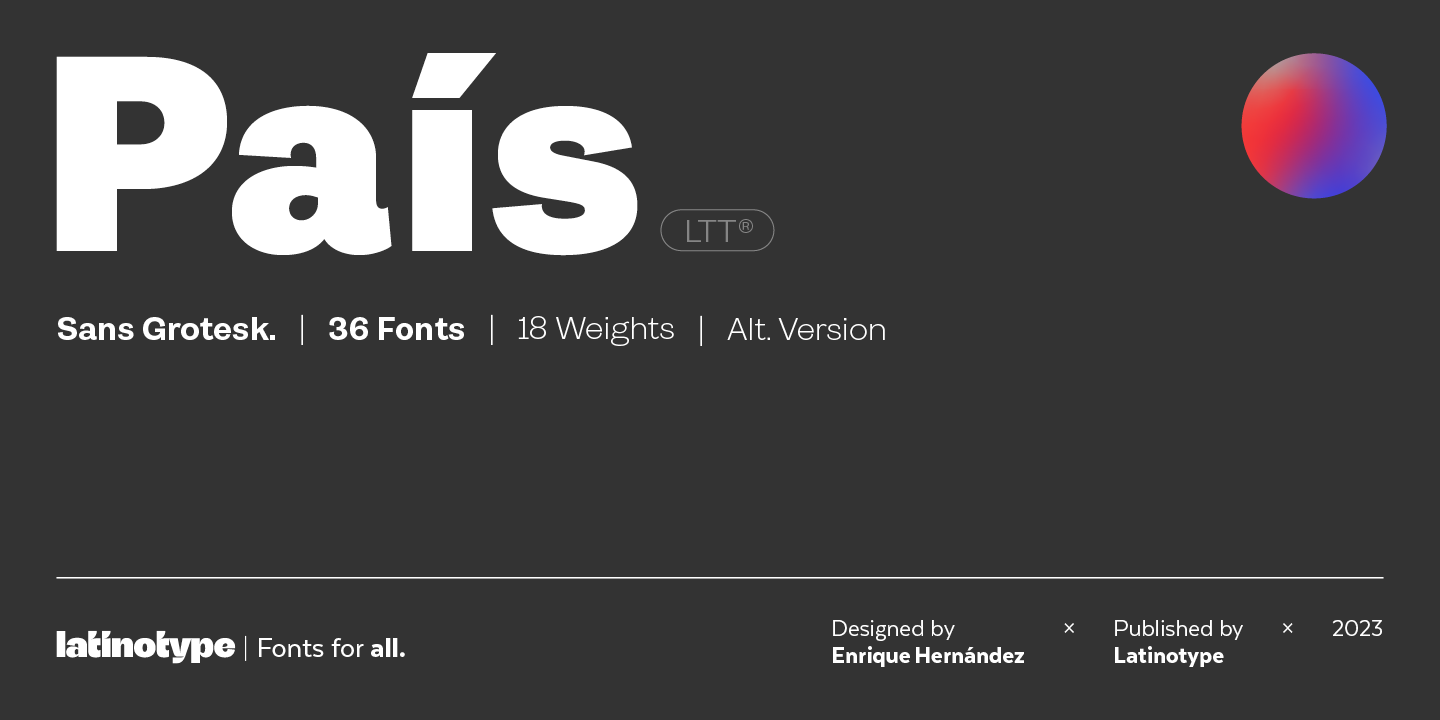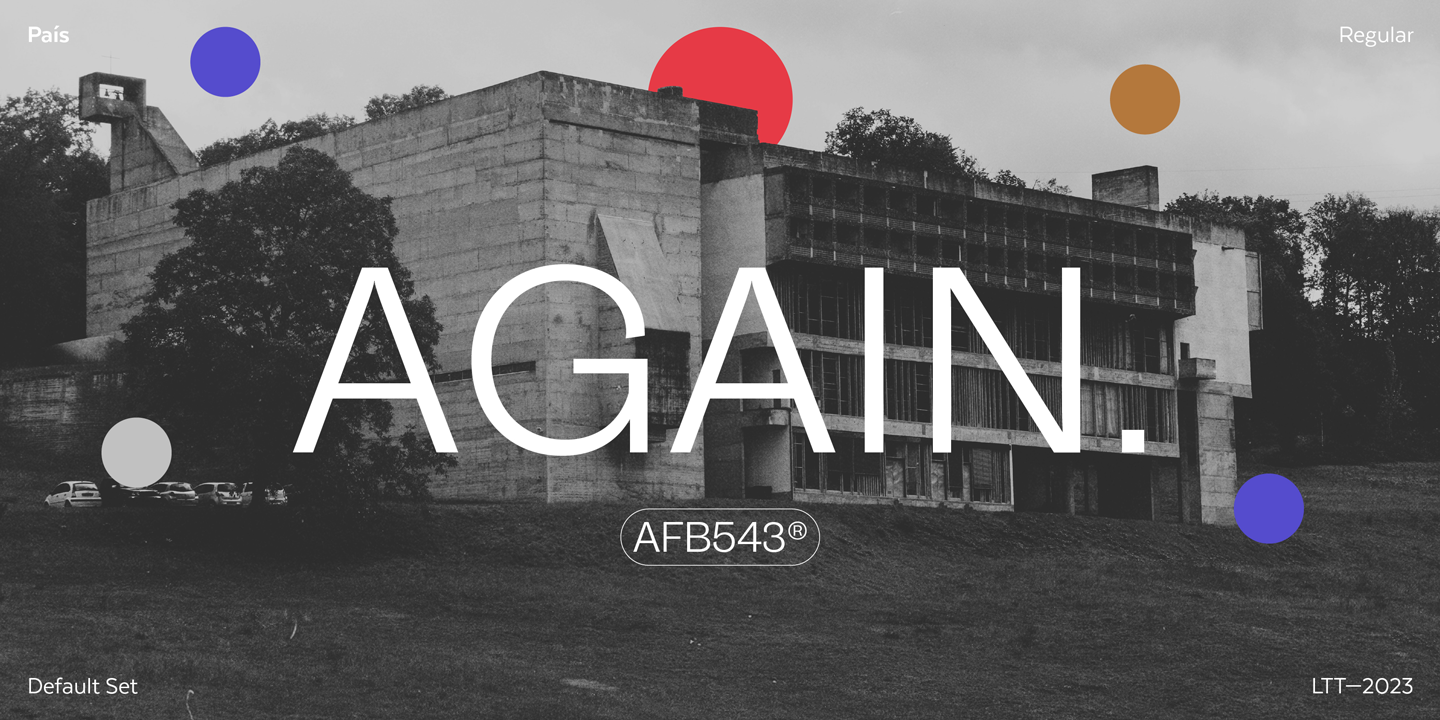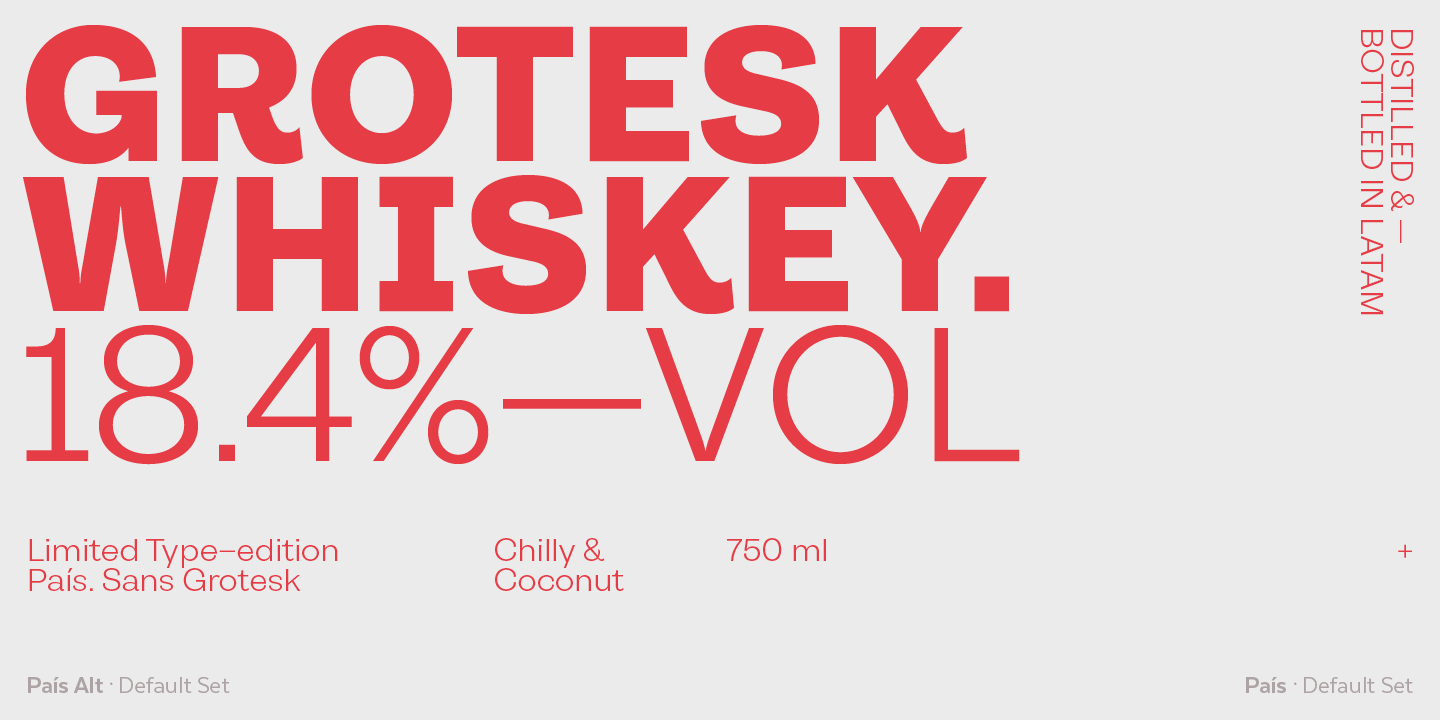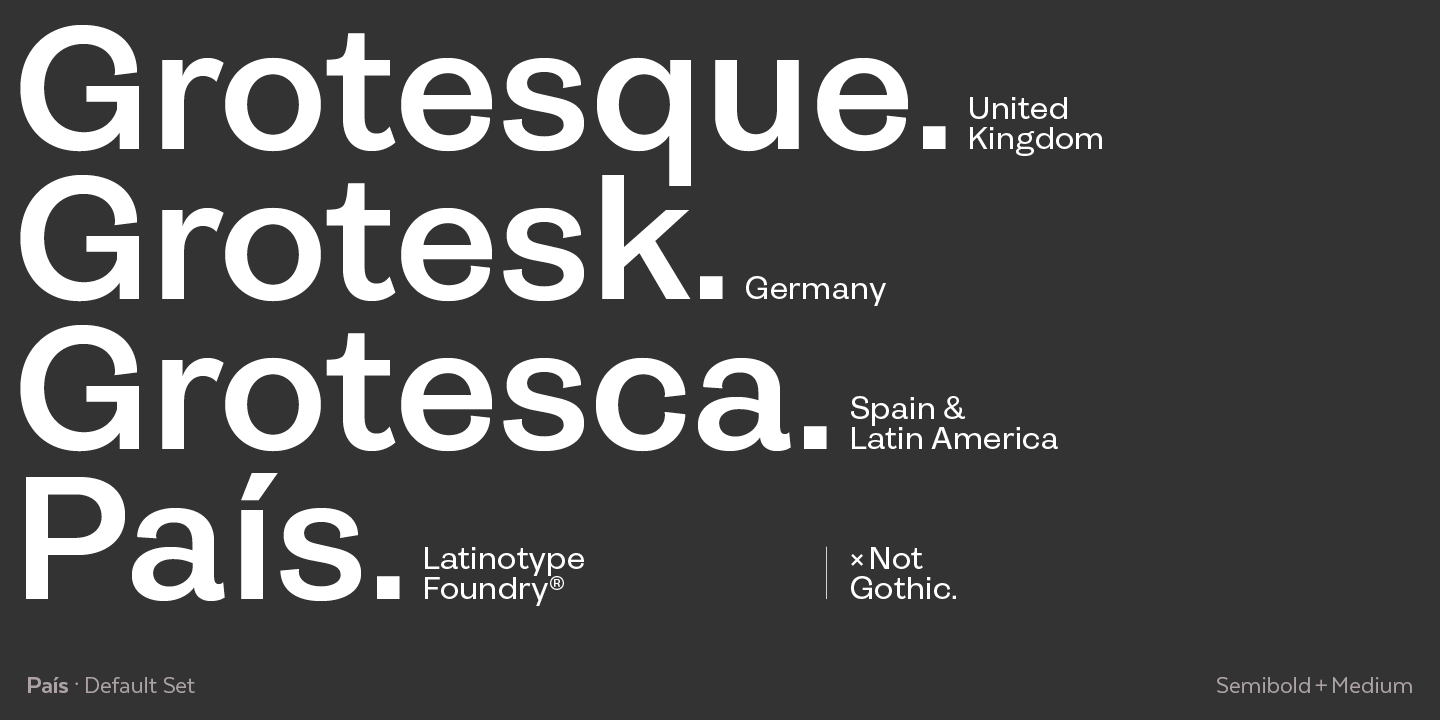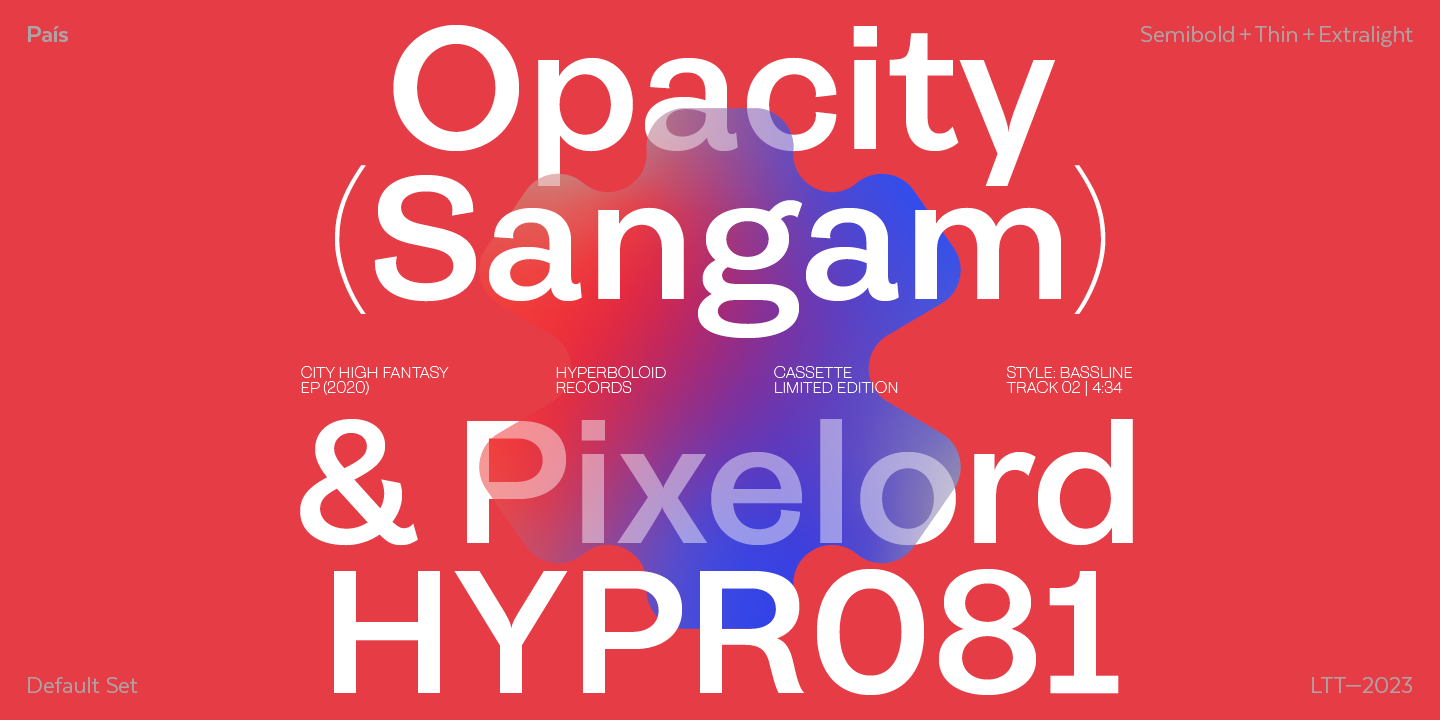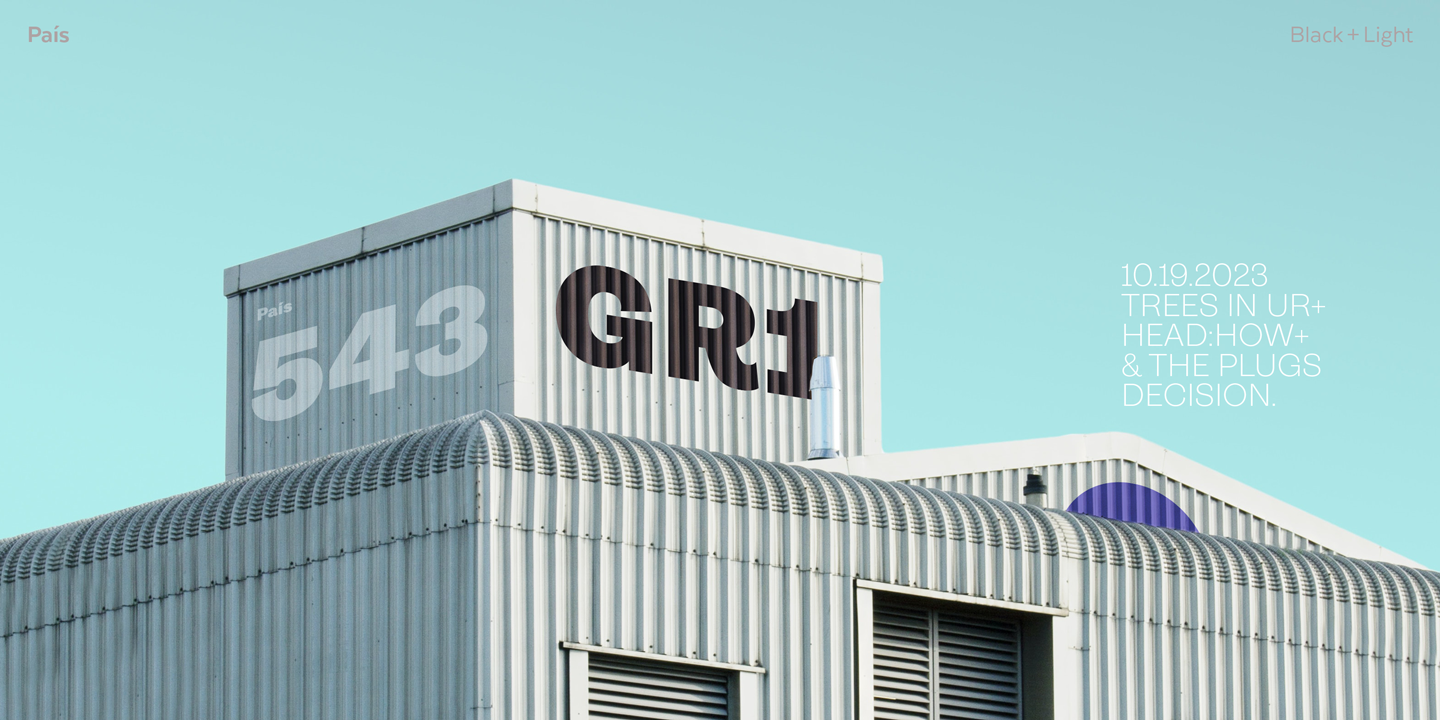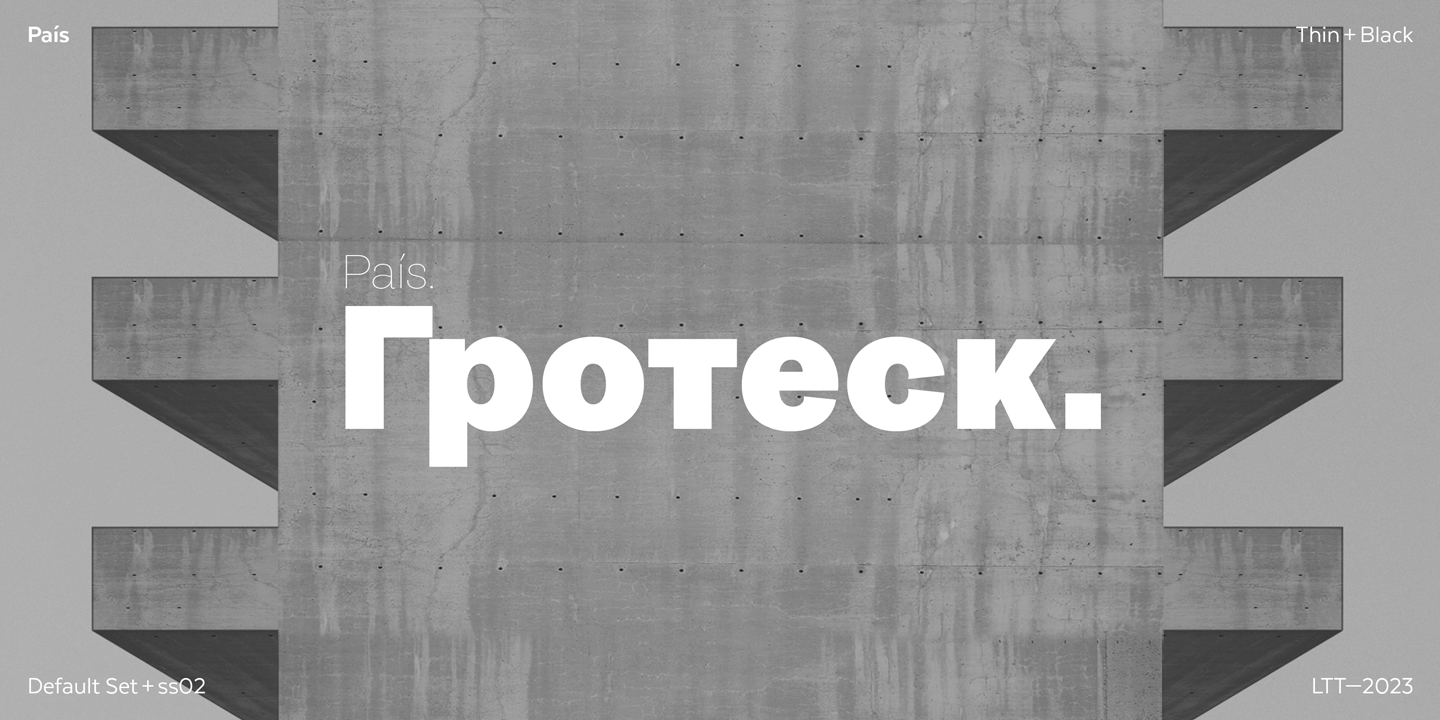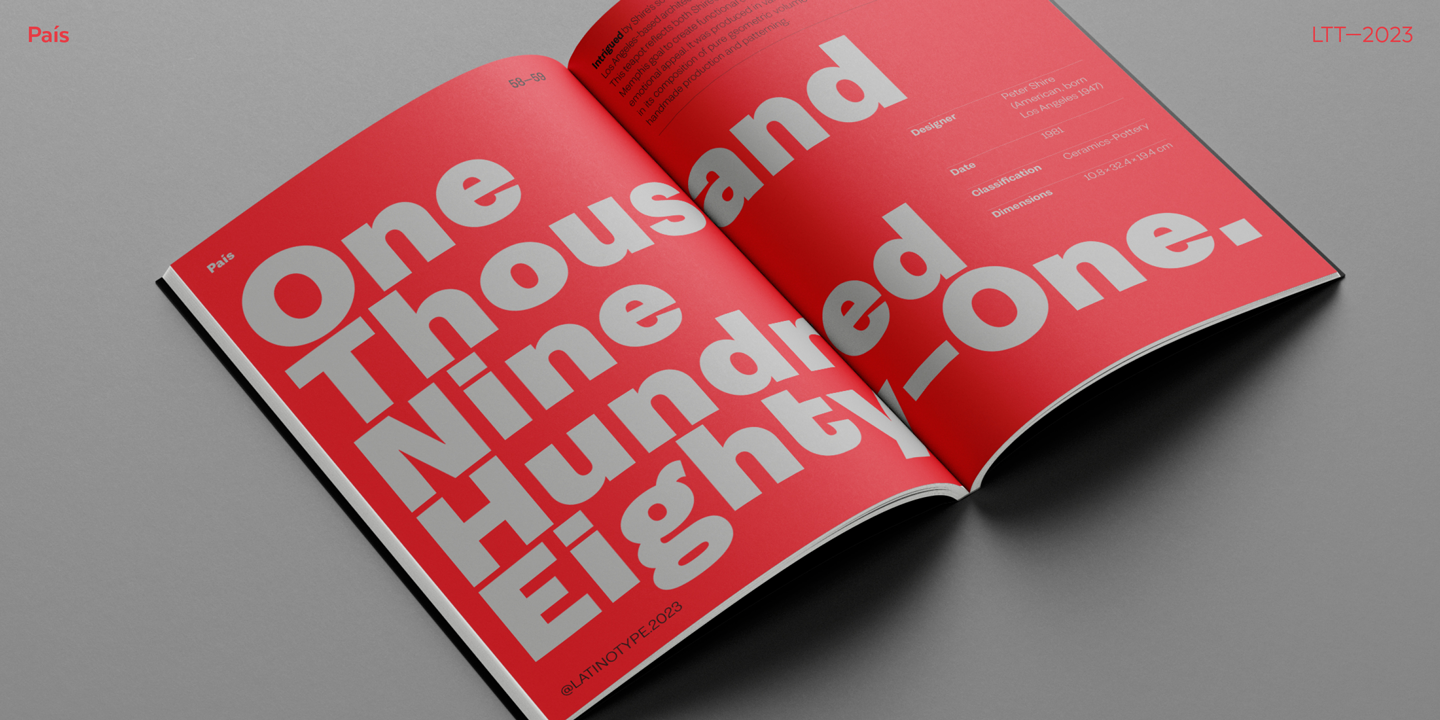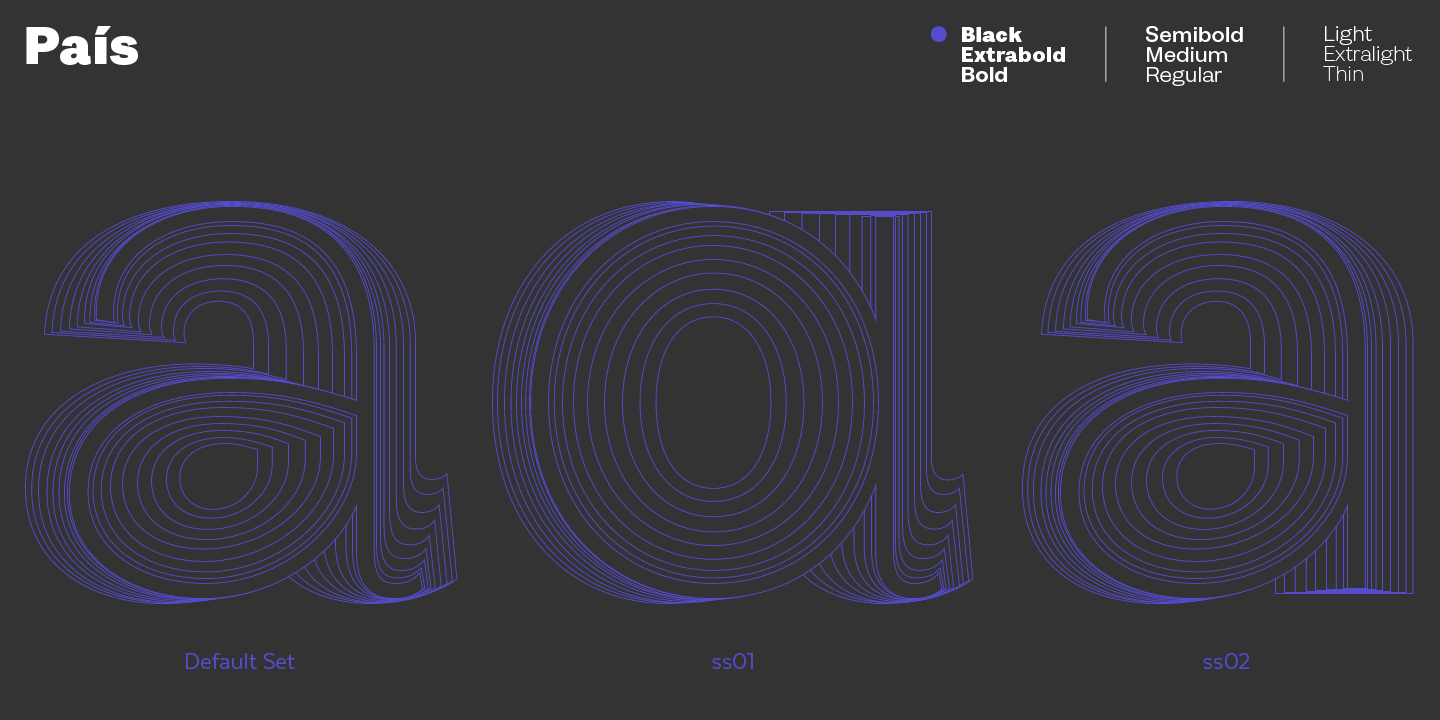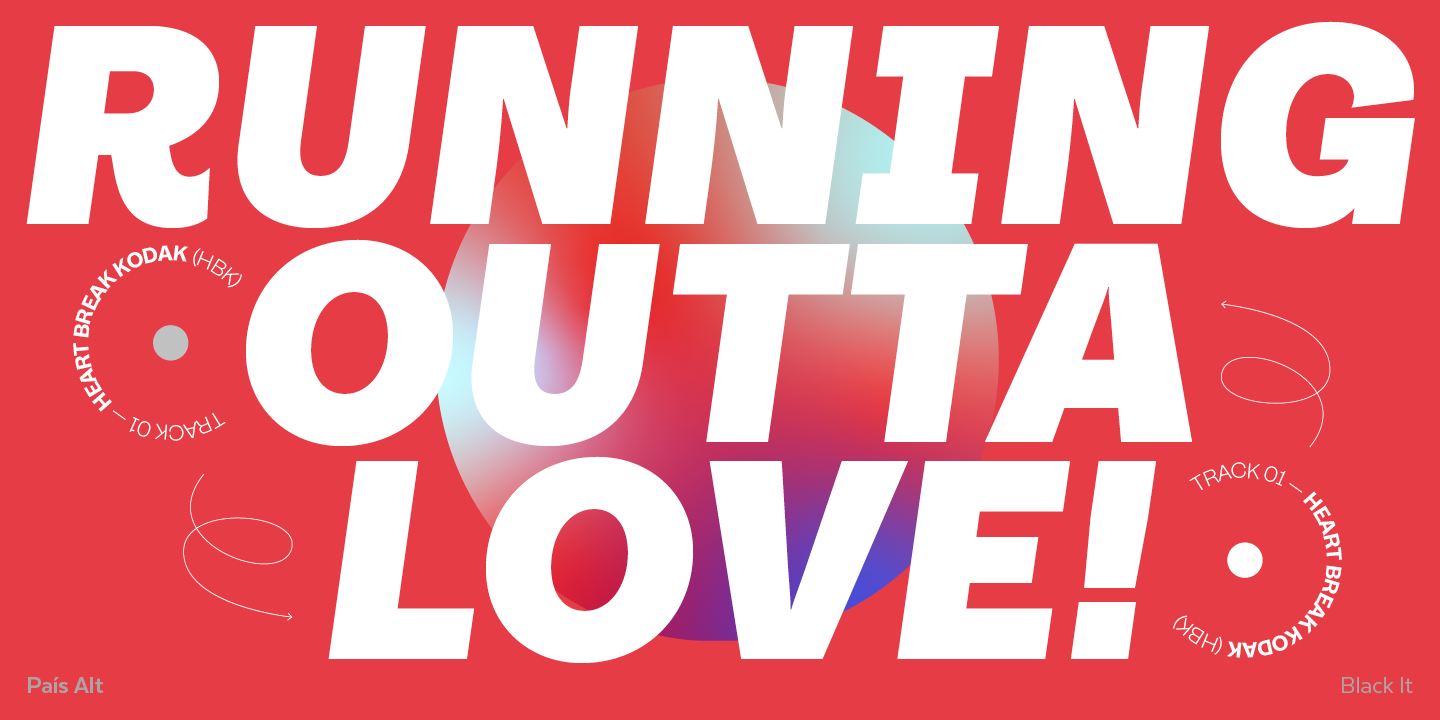
Pais Complete Family (36 fonts)
"País" comes in 2 versions, each with 9 weights, from thin to black, and matching italics, for a total of 36 fonts.
The standard sans serif version is fresh, clean, and more ideally neutral. It's a perfect choice for editorial design, branding, headlines, or any other piece of graphic design.
The "País Alt" version has more expressive and modern characters, with some giving it a much more playful image. It is ideal for logos, packaging, web and television use.
País contains a total of 682 characters that make it possible to write in more than 200 Latin languages ??and basic Cyrillic.